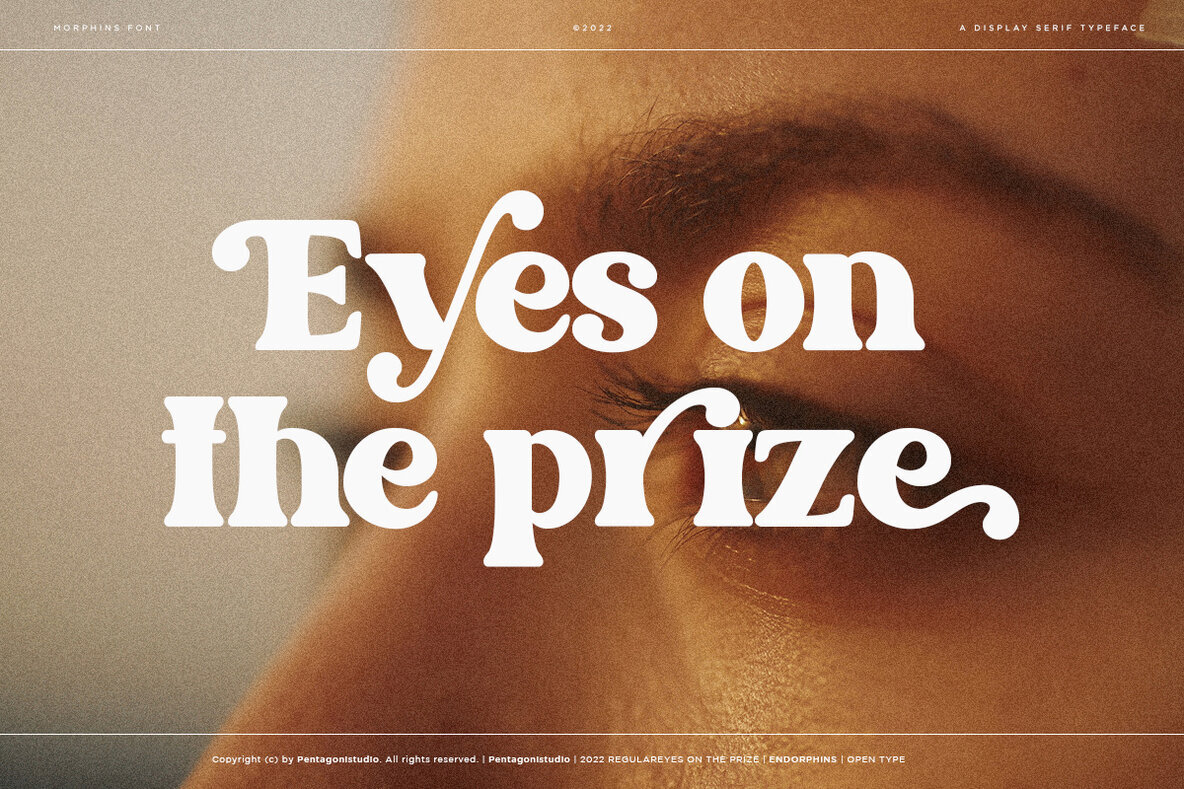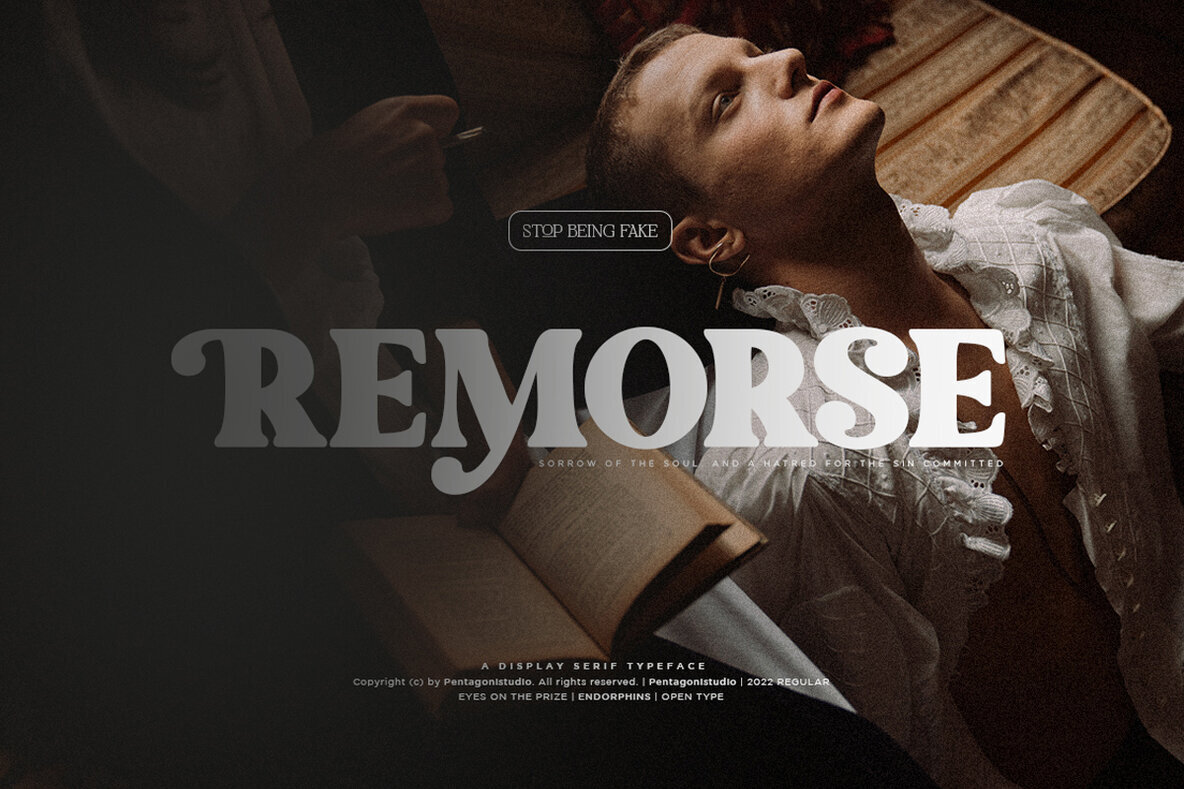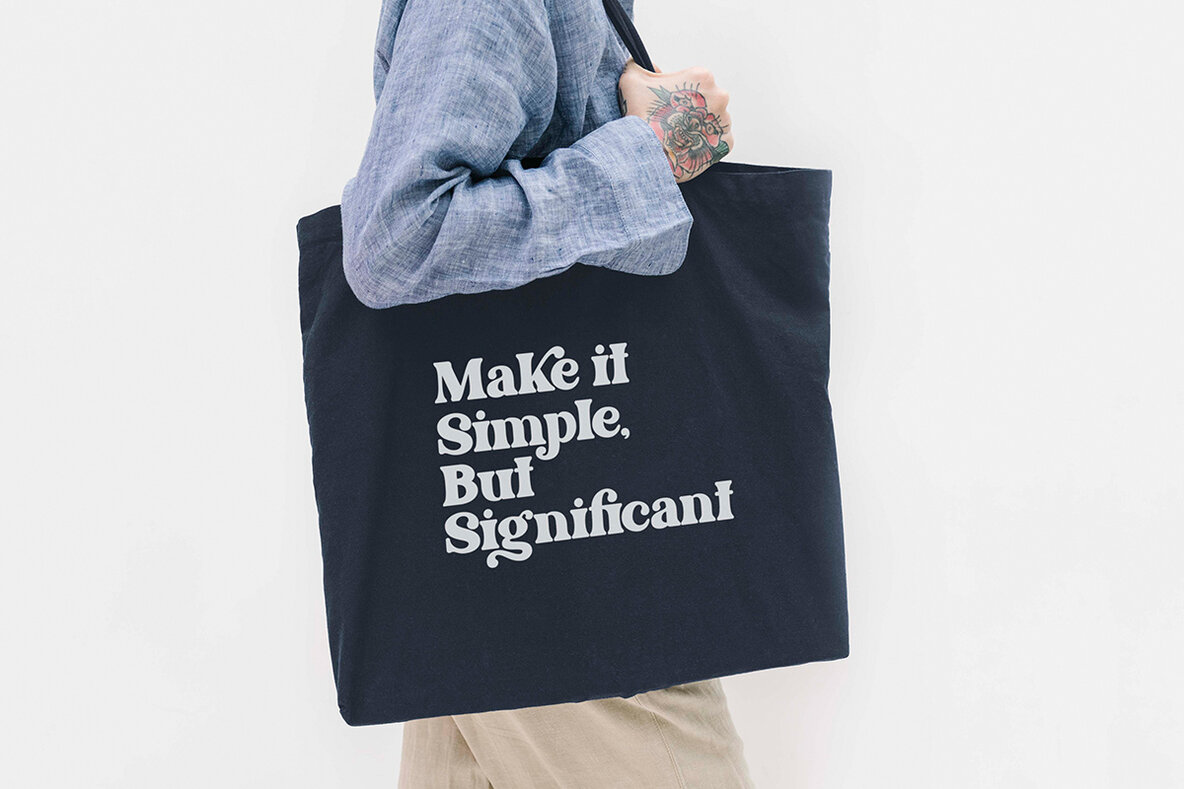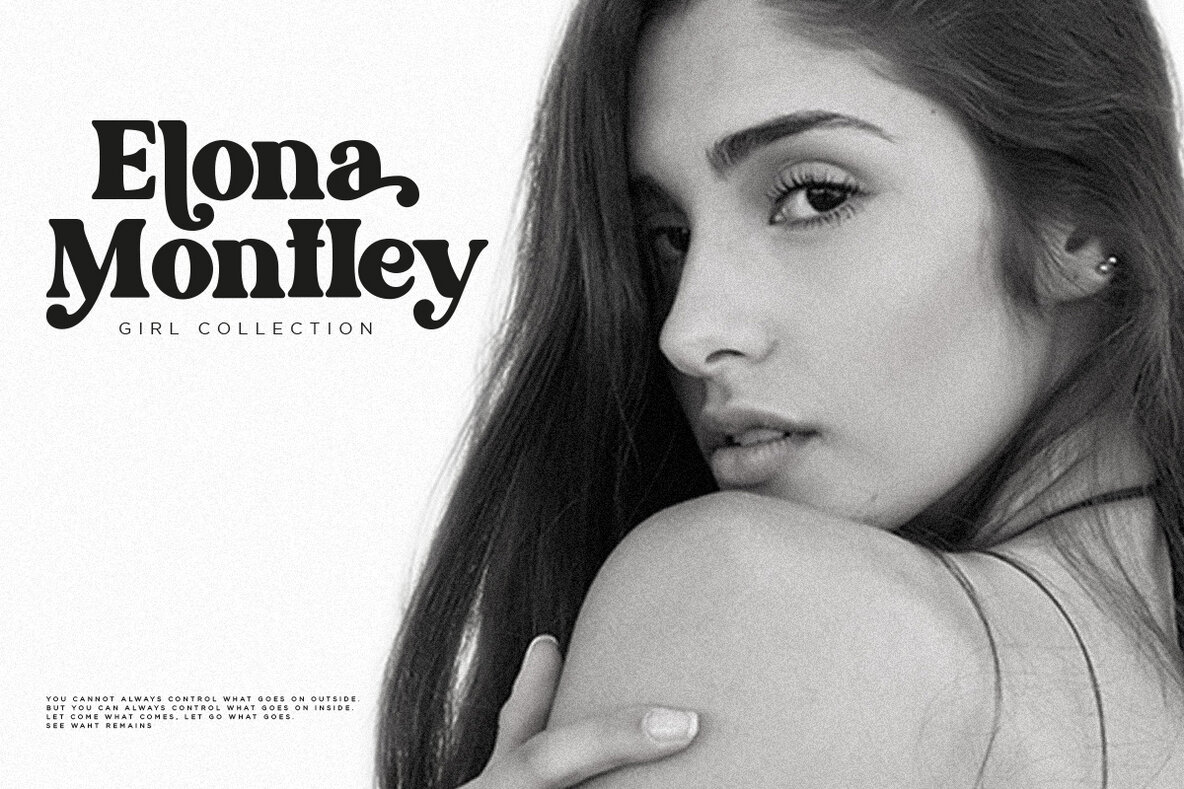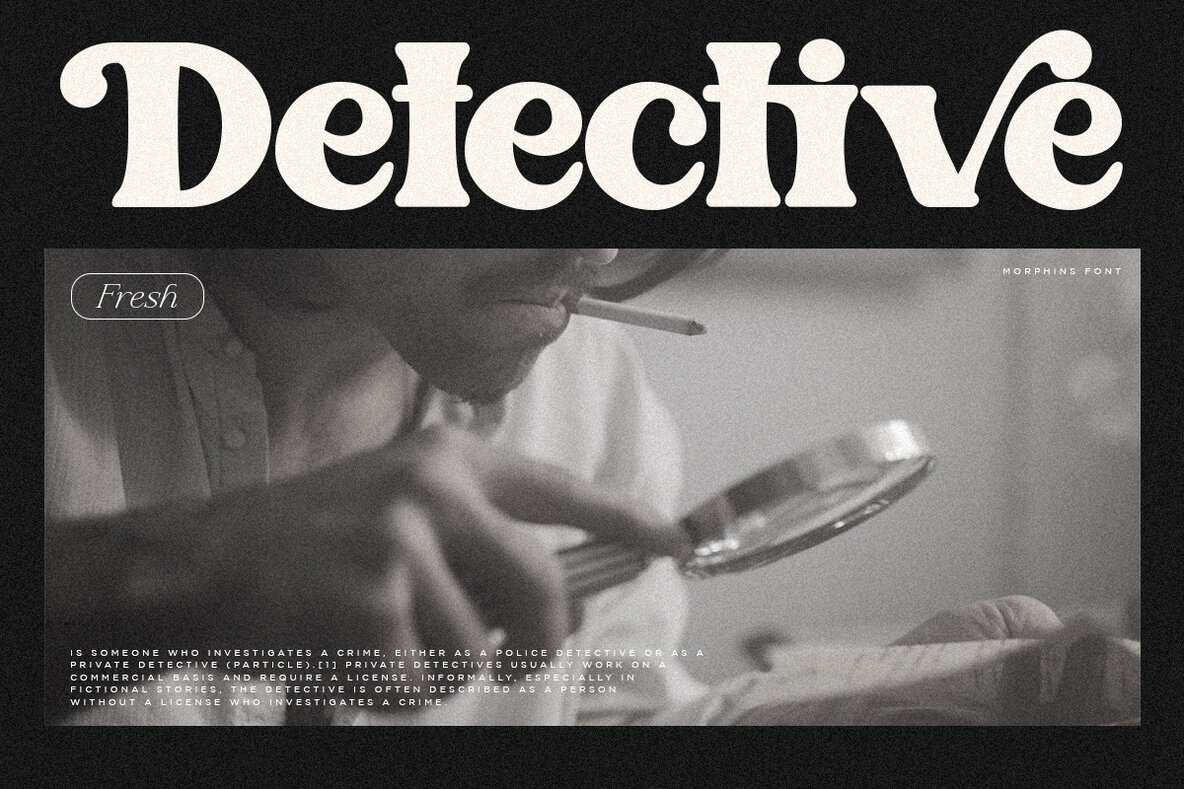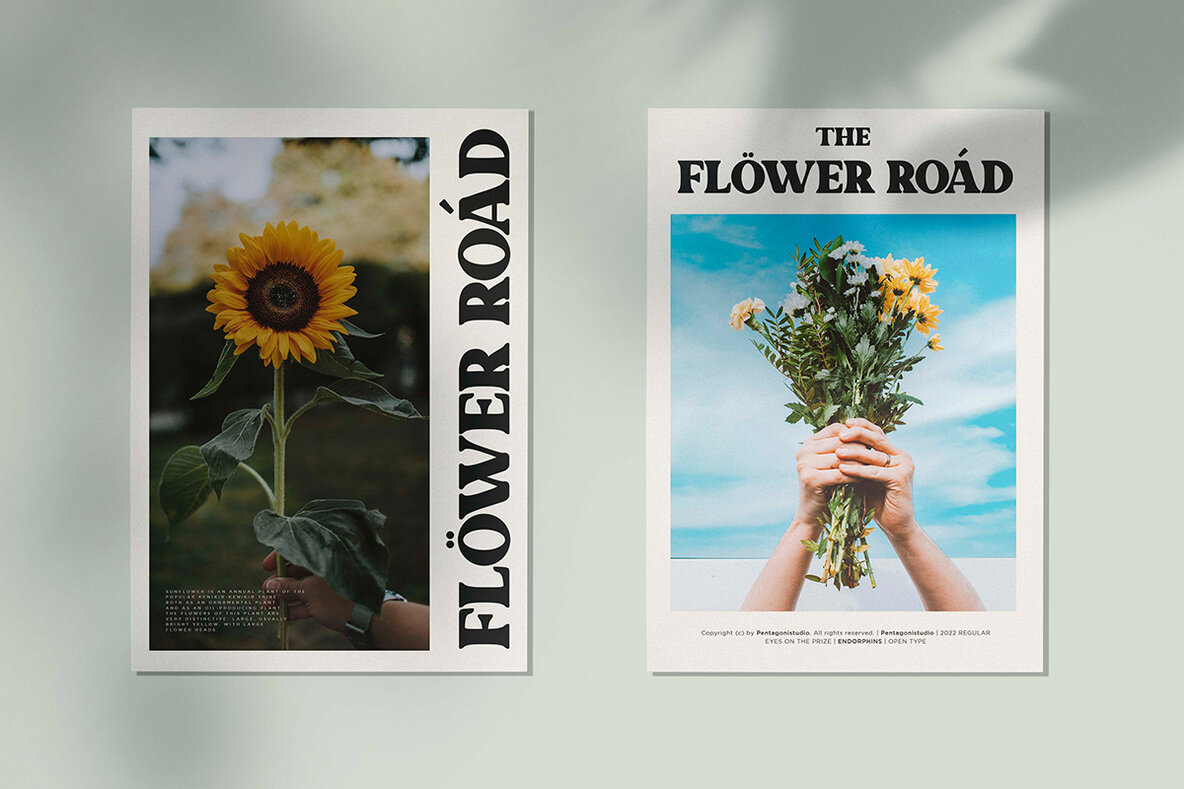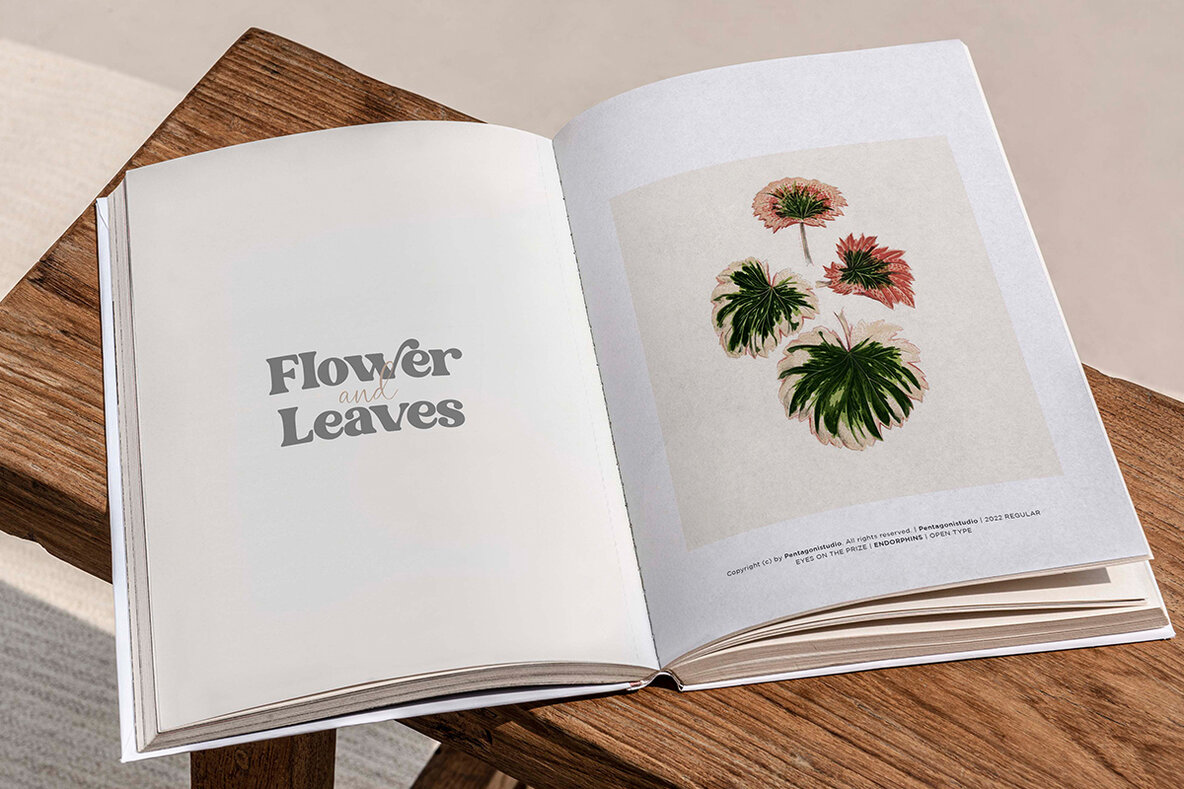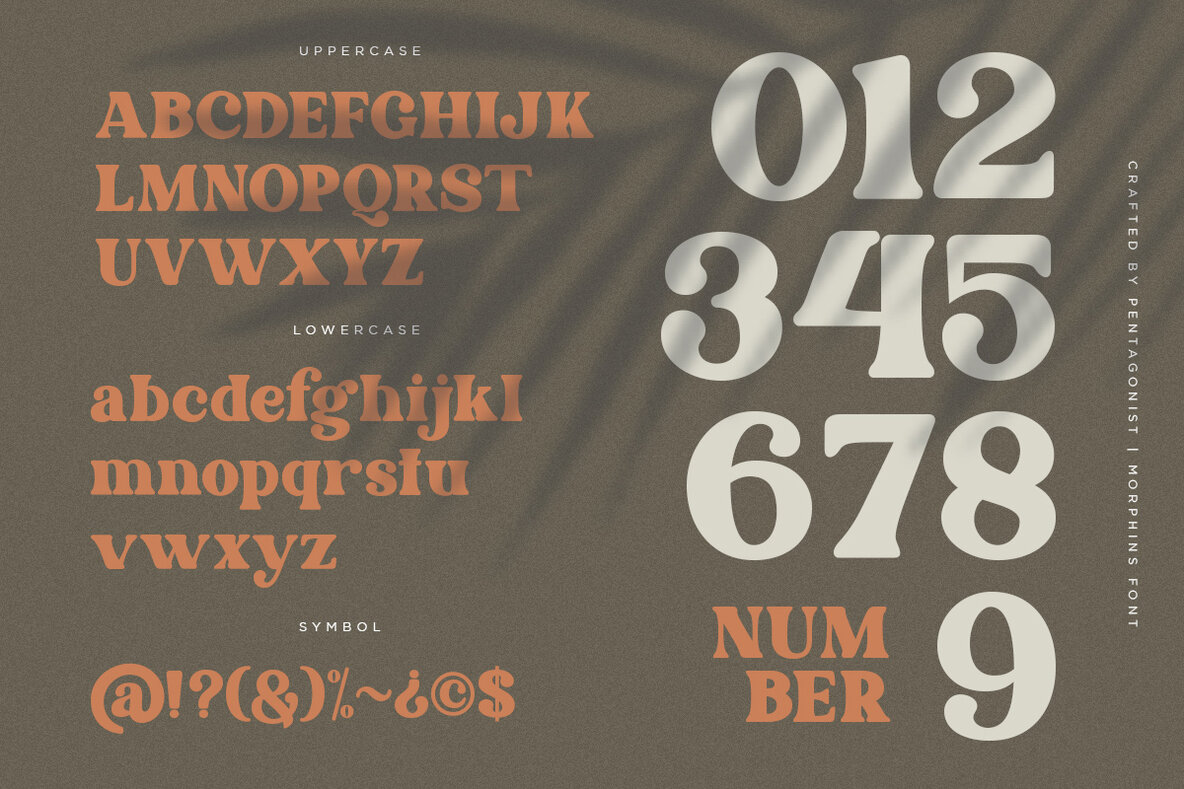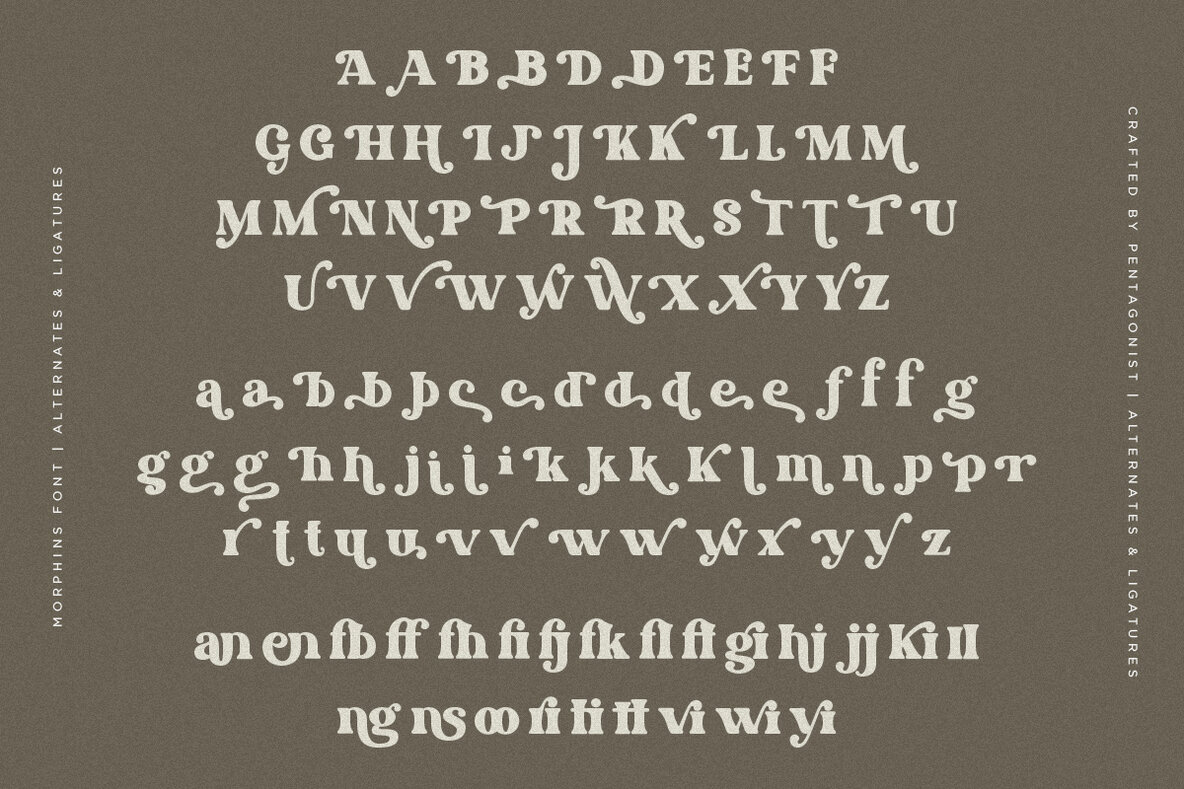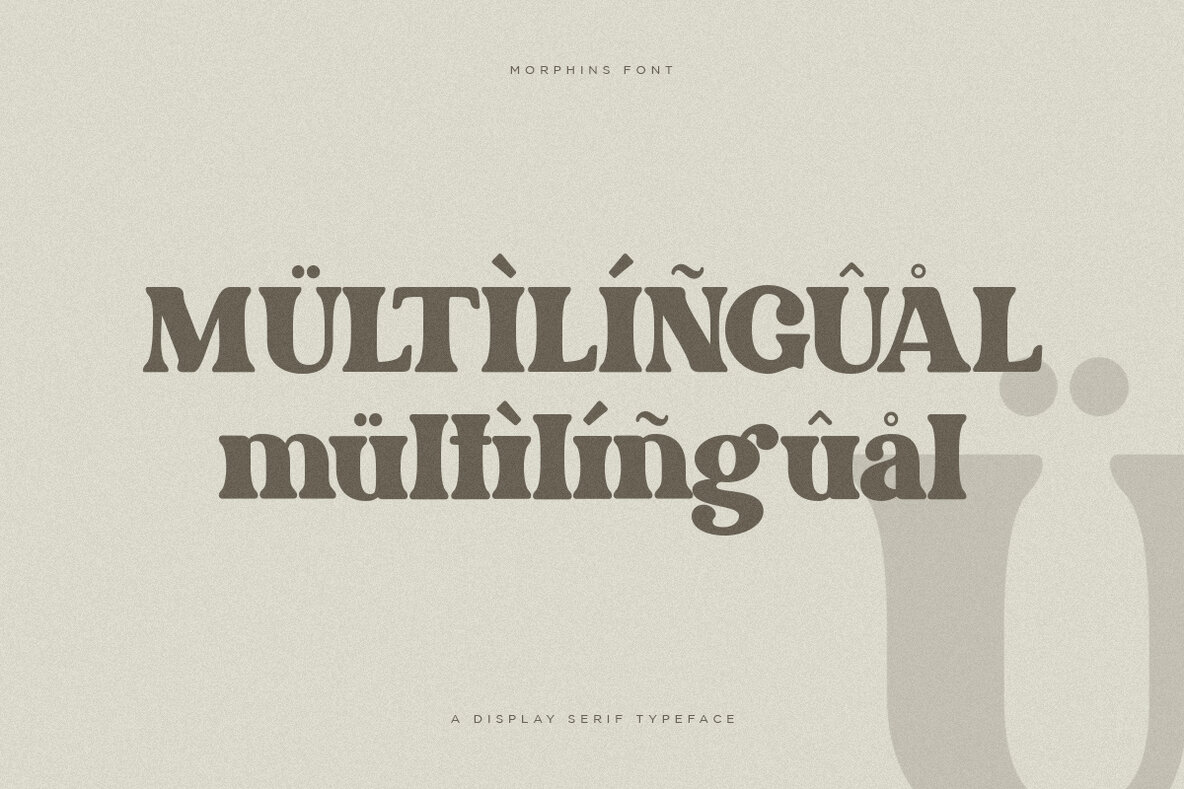
Morphins Font
Morphins Regular
Morphins by Pentagonistudio brings a blend of retro and vintage allure to your design projects. This fancy display serif character offers a timeless charm, making it ideal for those seeking a unique and sophisticated typeface that embodies the classic elegance of past decades. Morphins can be seamlessly integrated into various design applications without the need for specialized software. It is compatible with any basic program or website that supports standard fonts.Morphins: Retro-Inspired Fancy Display Serif